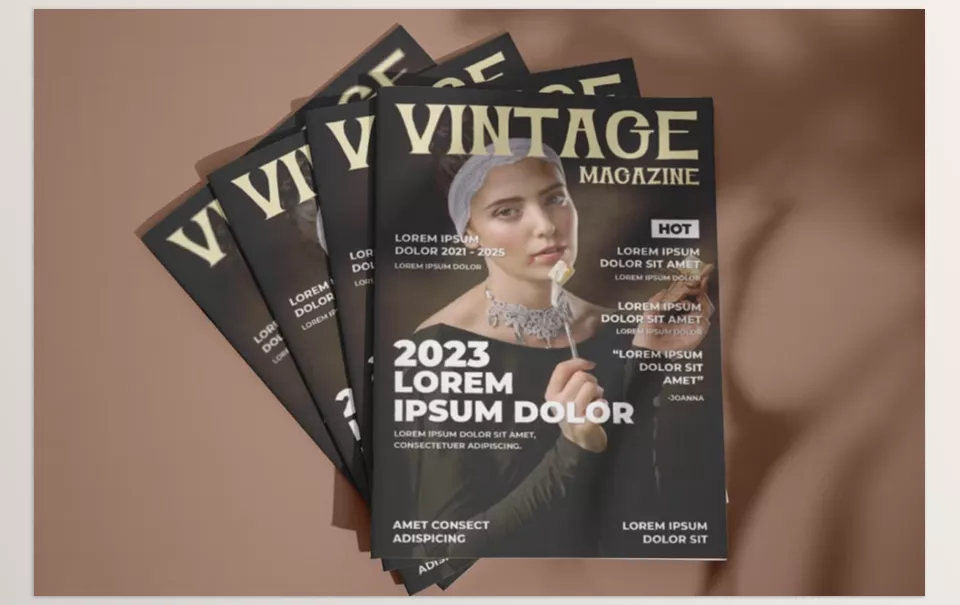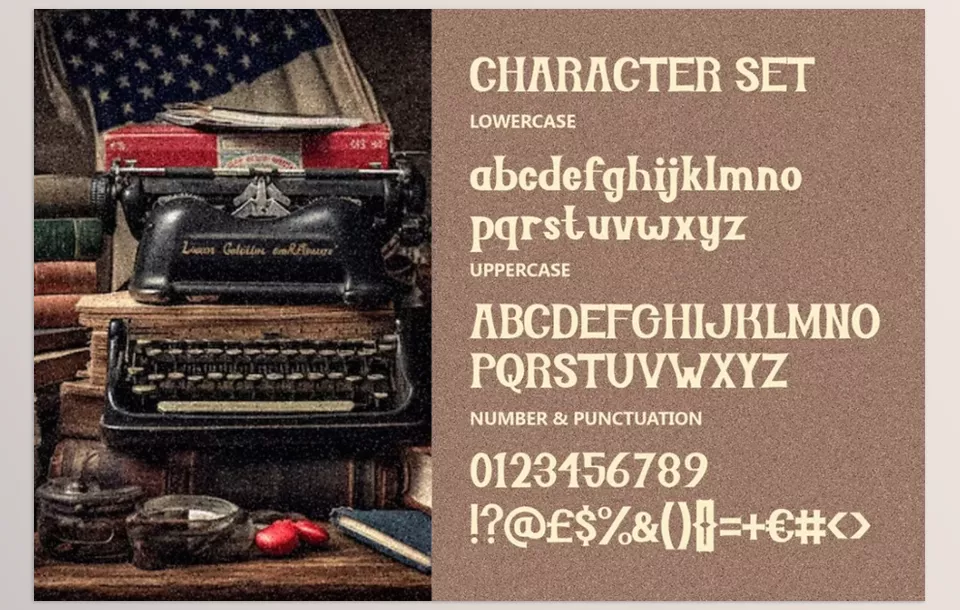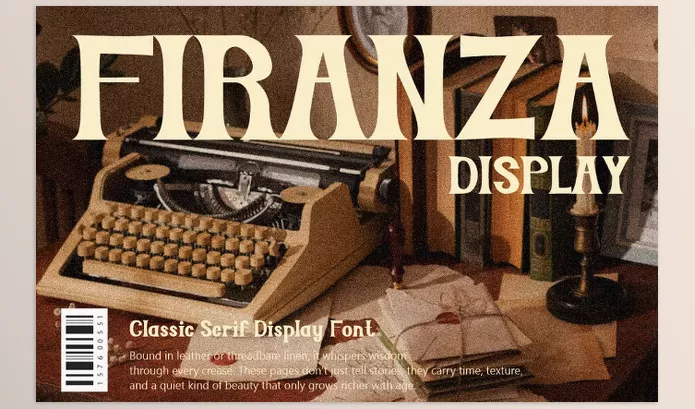
Creative Market – Firanza Display Classic Serif Font is a typeface sculpted with soft curves and sharp serifs, and it brings sophistication to any cover, magazine or poster design.
PutraCetol Studio – Firanza Display Classic Serif Font Features
• Vintage Editorial Aesthetic: Looks refined and sophisticated through elegant design.
• Timeless Appeal: Ideal to be used for branding, cinematic titles or editorial headers.
• Print and Digital Media: Merged nostalgia and modern clarity make it easily readable across multiple formats.
• Design Needs: Firanza expands your capabilities with a complete glyph set that includes uppercase, lowercase, punctuation, and numerals.
• Retro Feel: Old photographs and muted colour palettes alongside textured backgrounds are perfectly complemented with this font.
• Typewriter Nostalgia: Each letterform is designed to encapsulate dramatic presence.
Image 1: Add this serif font to your projects and enjoy timeless elegance.
Creative Market - Firanza Display Classic Serif Font - Add this serif font to your projects and enjoy timeless elegance.
Image 2: Enrich your visuals with a typeface that offers classic sophistication.
Creative Market - Firanza Display Classic Serif Font - Enrich your visuals with a typeface that offers classic sophistication.